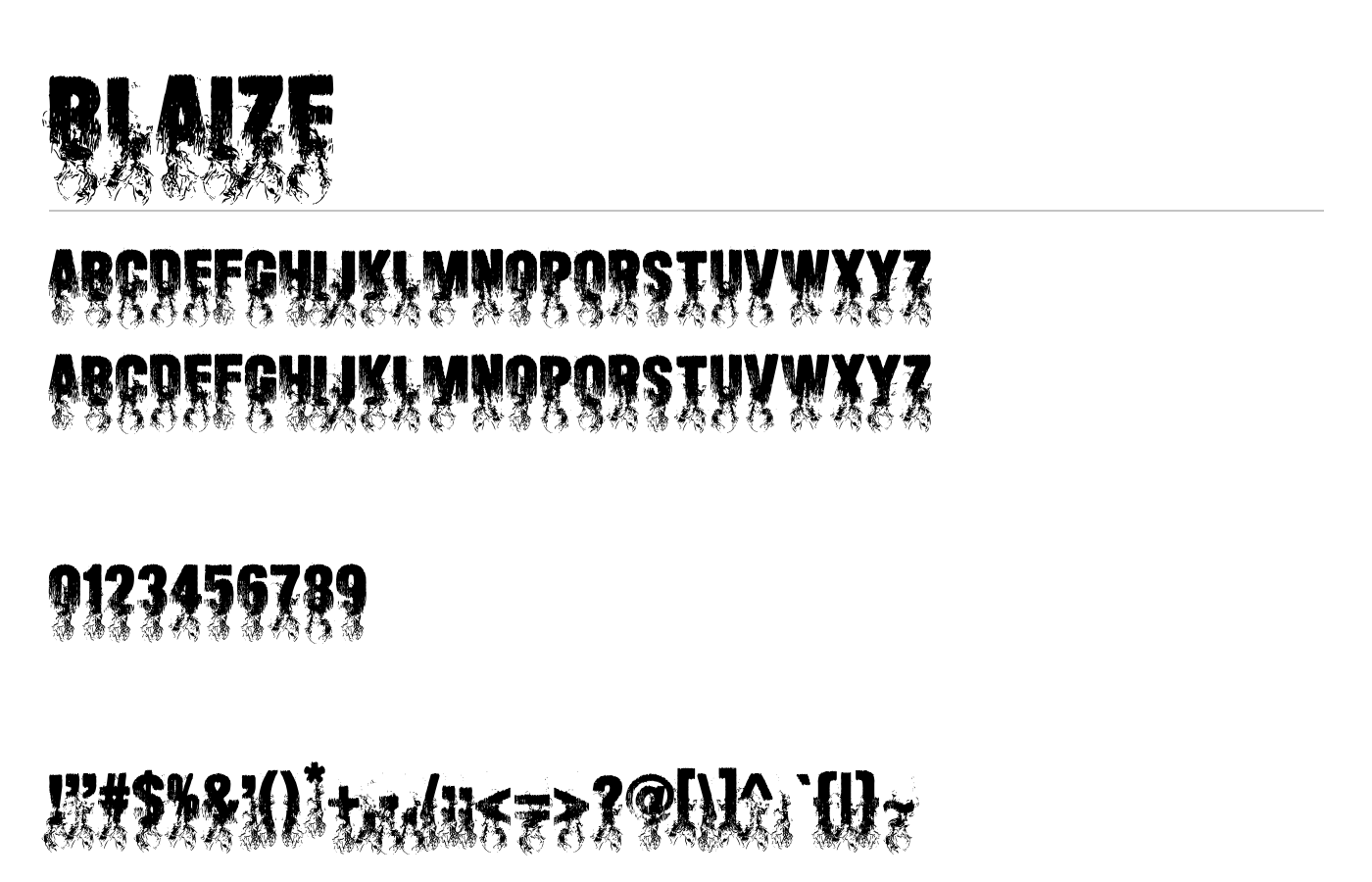
Blaize is a bold, all-caps display font with a distressed, grunge style that features rough, splattered edges and a unique textured effect resembling flames or smoke at the base of each character. Its heavy weight and condensed structure give it a strong, impactful presence, making it ideal for edgy branding, posters, or headlines where a rebellious or dramatic mood is desired. This font works best in creative contexts that call for a raw, urban energy rather than extended body text.
Blaize Font
About Blaize Font